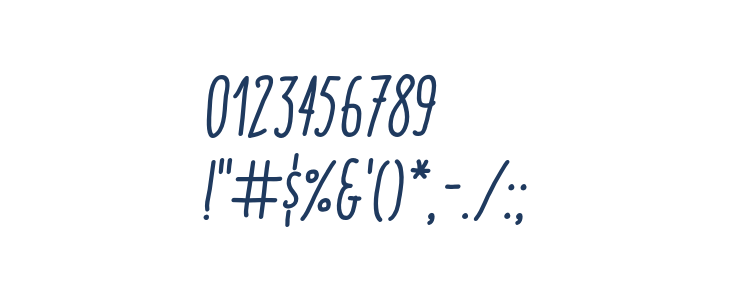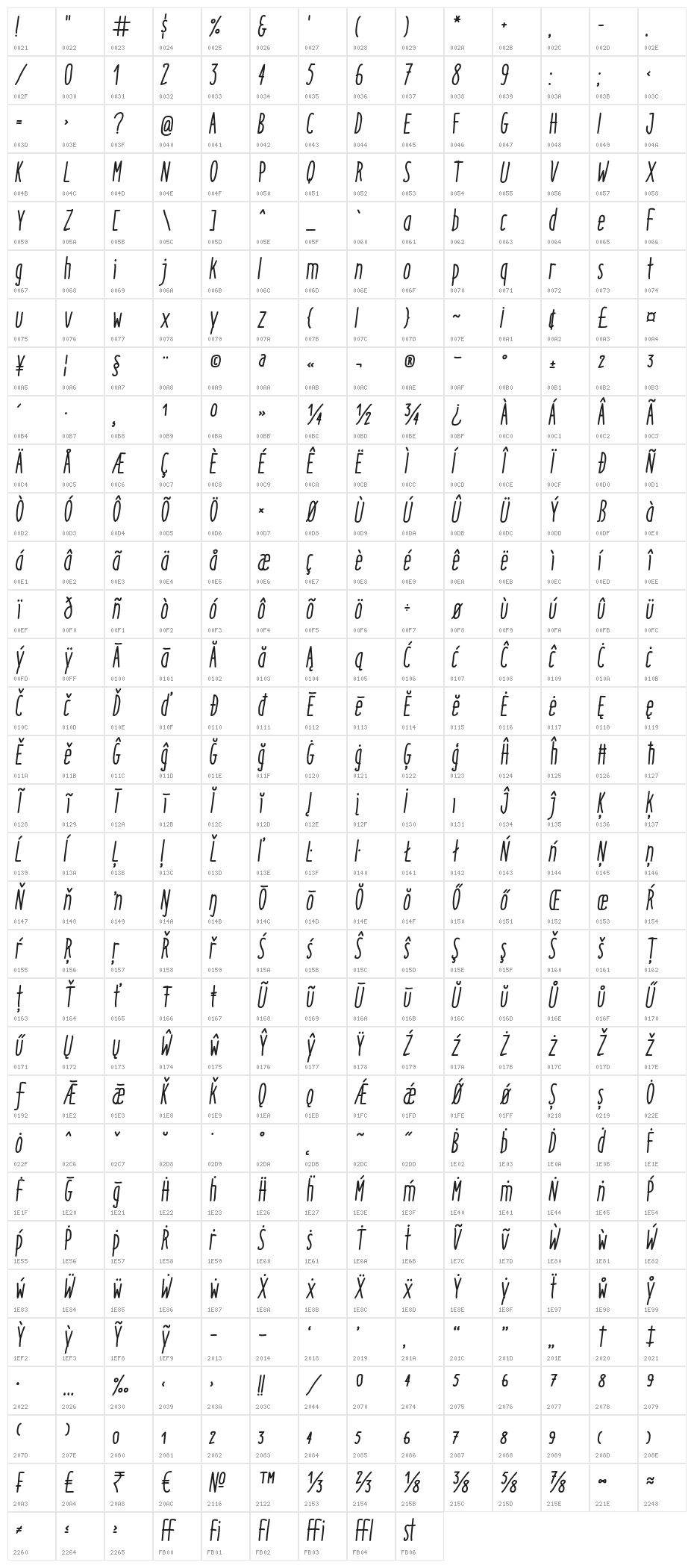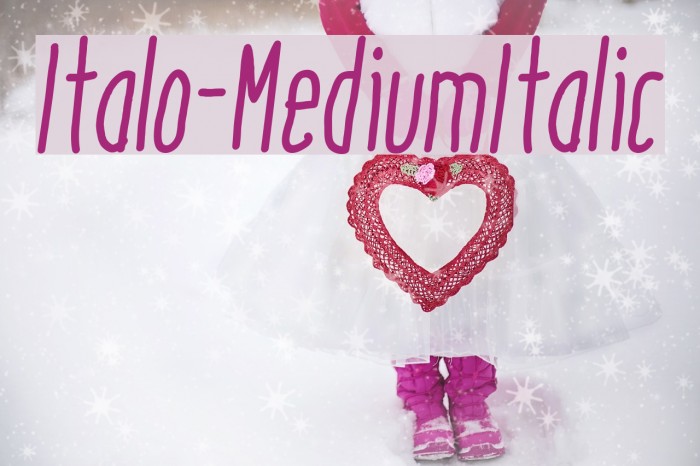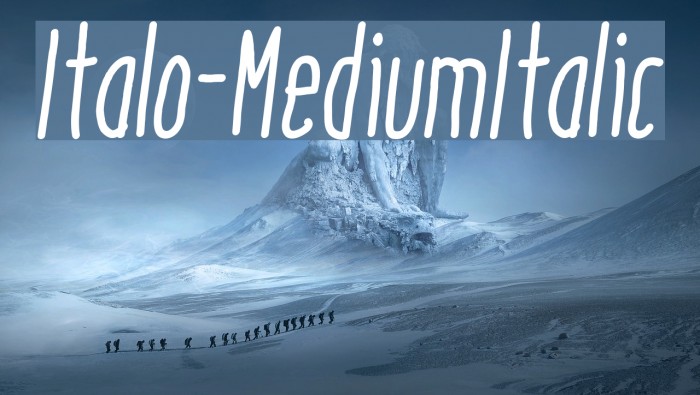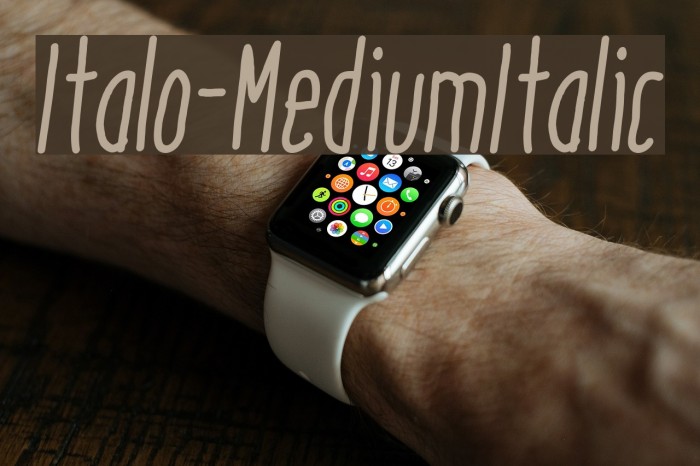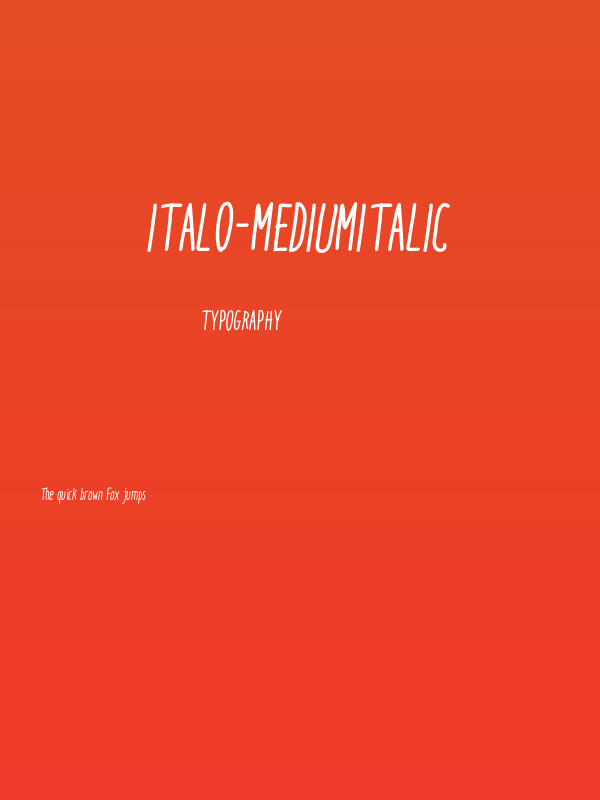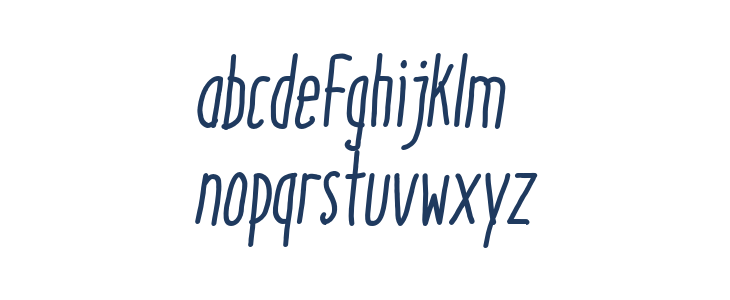
Italo-MediumItalic Font
Italo-MediumItalic Description
This font features a playful and dynamic style with a handwritten appearance. The characters are slightly slanted, giving it an italicized look, and the strokes are smooth and fluid, adding to its casual and friendly vibe. The uppercase and lowercase letters maintain a consistent flow, while the numbers and special characters complement the overall design. The font's medium weight ensures readability while retaining its distinctive personality.